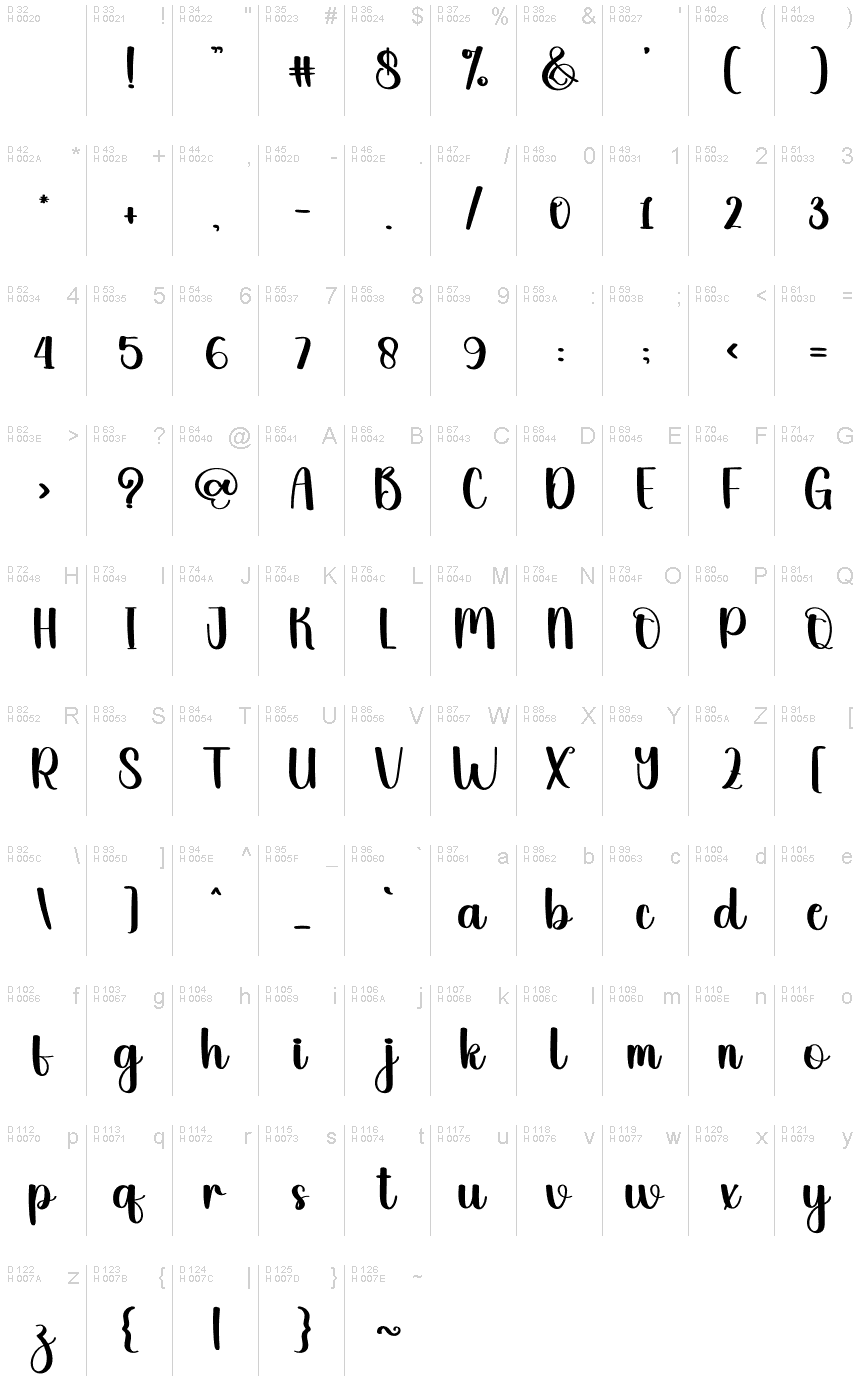
Volleyball
Volleyball, designed by Inermedia Studio, is an enchanting calligraphy font that exudes elegance and grace.
With its fluid strokes and intricate details, this typeface is perfect for wedding invitations, luxury branding, and feminine fashion projects. Its delicate curves create a sense of sophistication, making it suitable for high-end product packaging and magazine editorials. Volleyball's versatility also shines through in social media graphics and inspirational quote designs.
Whether used in print or digital media, this captivating font adds a touch of refinement to any project, leaving a lasting impression on the audience.